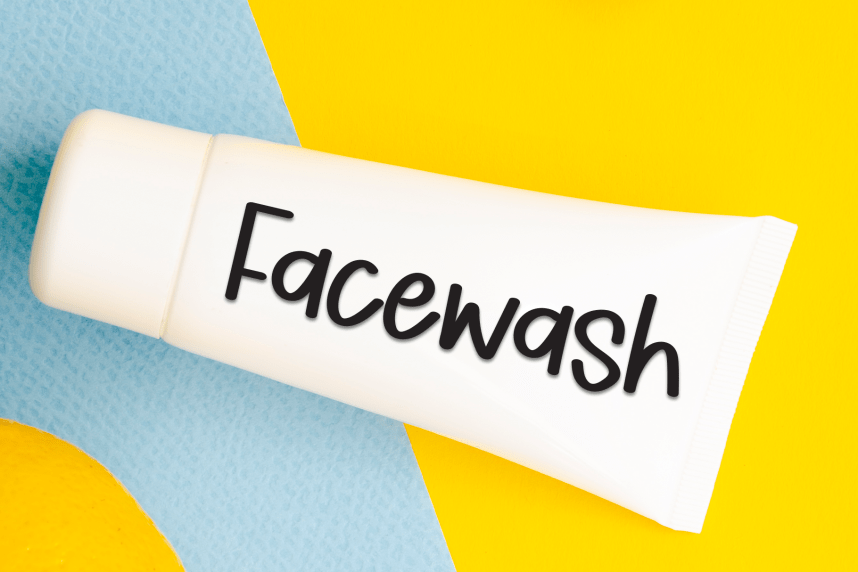
Costume – Simple Handwritten Font
Costume – Simple Handwritten Font is a sweet and friendly handwritten display font. Cute and fun, this font is ideal for writing wedding invitations, cards, or any other design that might need a playful touch!